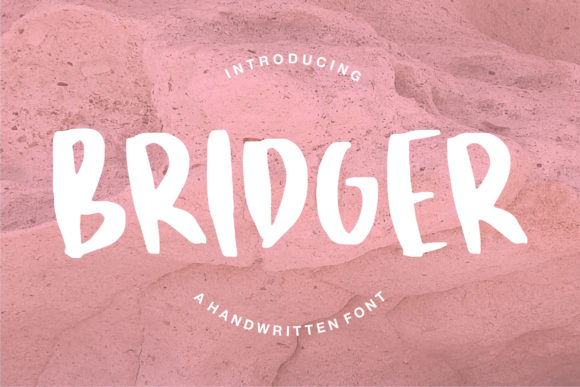
The Ultimate Guide to Bridger Font: Adding Nostalgic Character to Your Designs
I’ll never forget the time I was working on a project for a client who wanted a font that screamed “urban cool.” I spent hours scouring the internet, trying out font after font, but nothing seemed quite right. That was until I stumbled upon Bridger Font. This casual, urban-styled handwritten font has been a game-changer for my designs, and I’m excited to share its awesomeness with you! 😊
An Honest Review of Bridger Font
• ✨ Strong and confident: Bridger Font reads as bold and dynamic, making it perfect for headlines and titles.
• ✅ Nostalgic character: This font has a unique, retro vibe that adds tons of personality to any design.
• 💥 Versatile: Bridger Font works amazingly well for both digital and print designs, from social media graphics to posters and flyers.
While Bridger Font is an amazing addition to any design project, there are a few things to keep in mind:
• 🤔 Limited formal applications: Due to its casual, handwritten nature, Bridger Font might not be the best choice for super formal or corporate designs.
• ⚠️ Some letter spacing issues: Occasionally, you might need to adjust the letter spacing to get the perfect flow, especially when using all caps.
The Backstory of Bridger Font
Bridger Font was designed with the urban landscape in mind. Its creator wanted to craft a font that captured the energy and confidence of city living. With its bold lines and dynamic feel, Bridger Font is perfect for designs that need a little extra oomph.
Font Name Bridger Font
Author Vunira
Q: What type of designs is Bridger Font best suited for?
A: Bridger Font is perfect for designs that need a strong, confident, and dynamic feel, such as posters, flyers, social media graphics, and more.
Q: Is Bridger Font a script font?
A: While Bridger Font has a handwritten feel, it’s not a traditional script font. It’s more accurately described as a casual, urban-styled handwritten font.